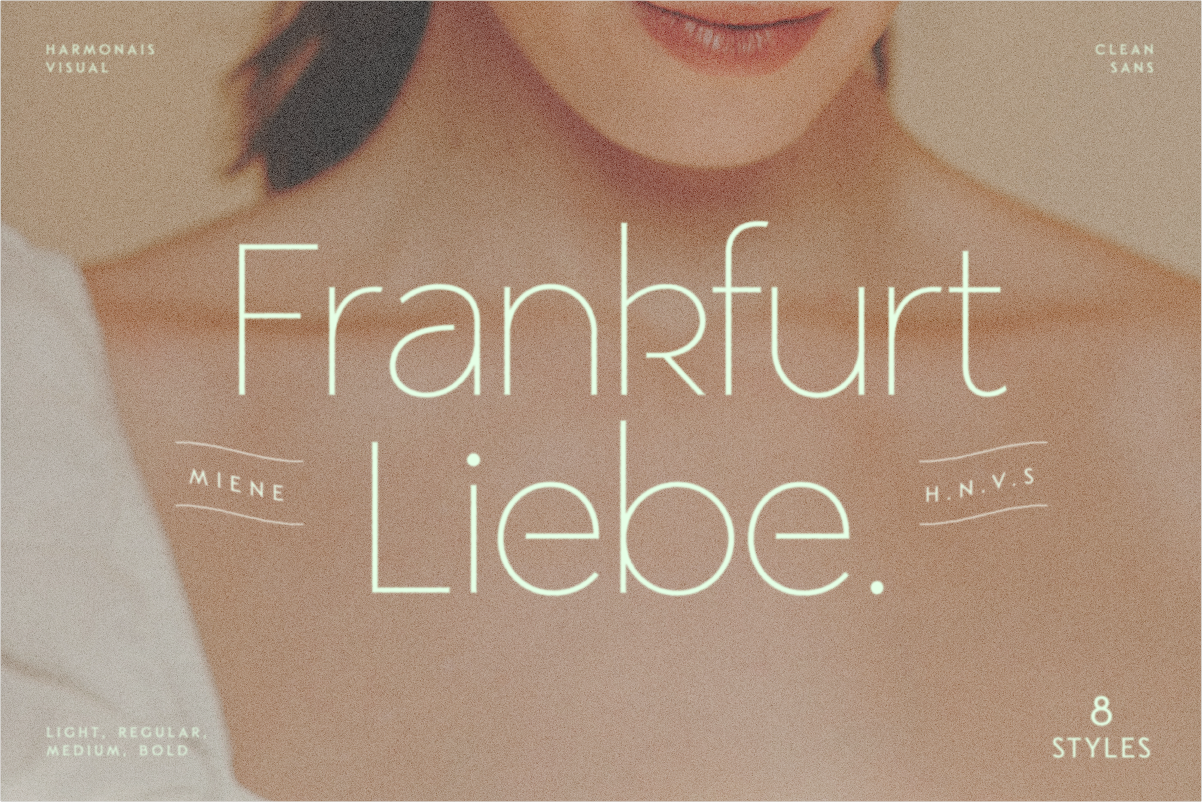
Frankfurt Sans - 8 Font Typeface
Frankfurt - a clean, display sans serif with great versatility. With multiple weights, this typeface can be used to create a wide range of designs looking to achieve a fun, modern, and youthful look.
PAIRING
This font is versatile and could be paired with lots of other fonts such as HV Fitzgerald, HV Analogue, HV Florentino, HV Olive & Figs, or other clean serifs...
HV FRANKFURT FEATURE:
- Europeans languages
- Vietnamese